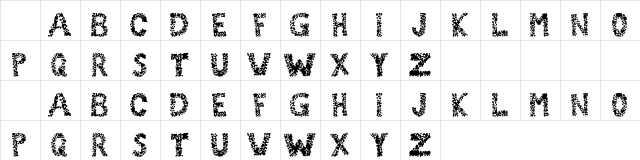
101! Cheetah Print Regular
Design Context for 101! Cheetah Print Typeface
101! Cheetah Print is a composed and adaptable typeface that performs quietly and consistently across a wide range of design contexts.